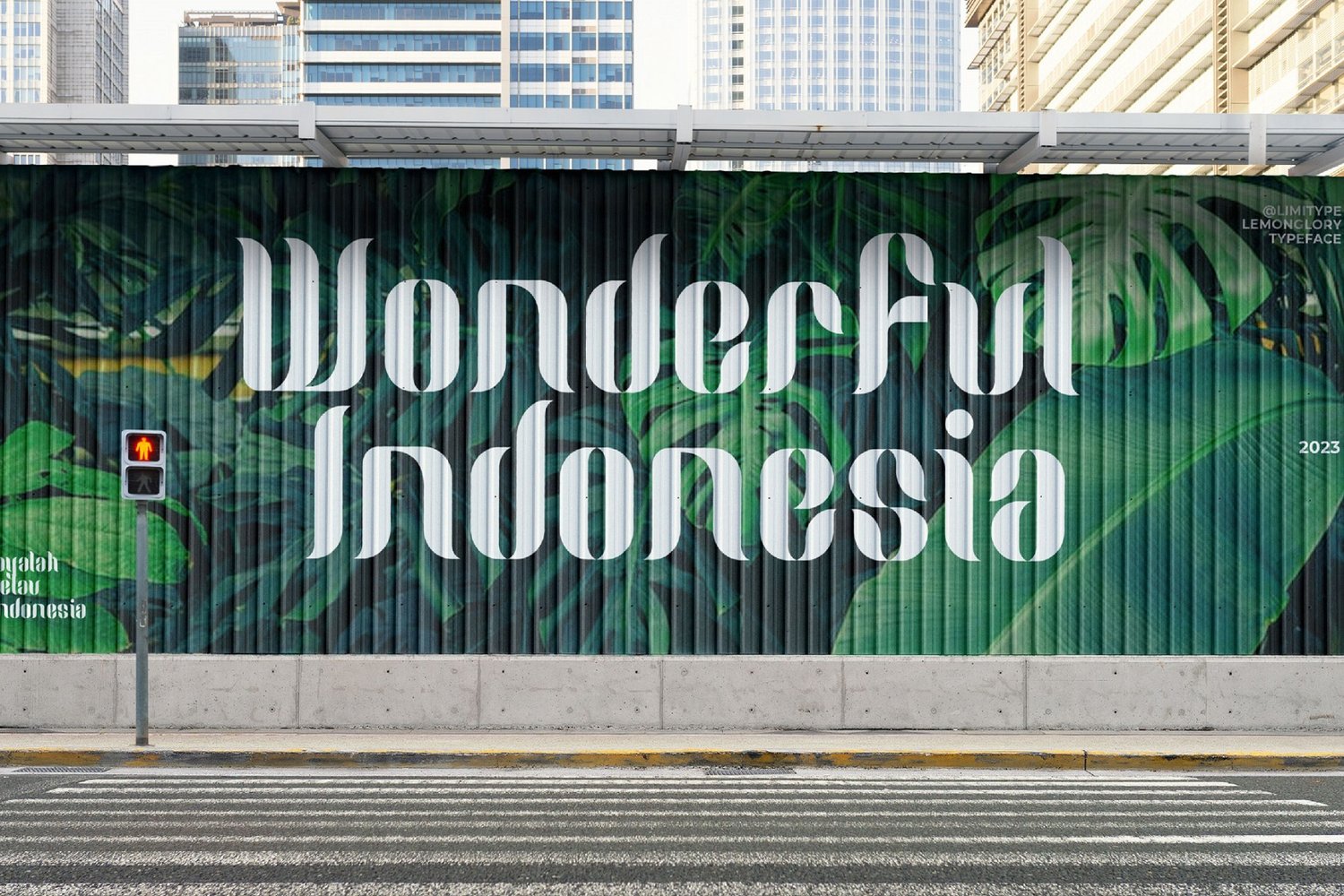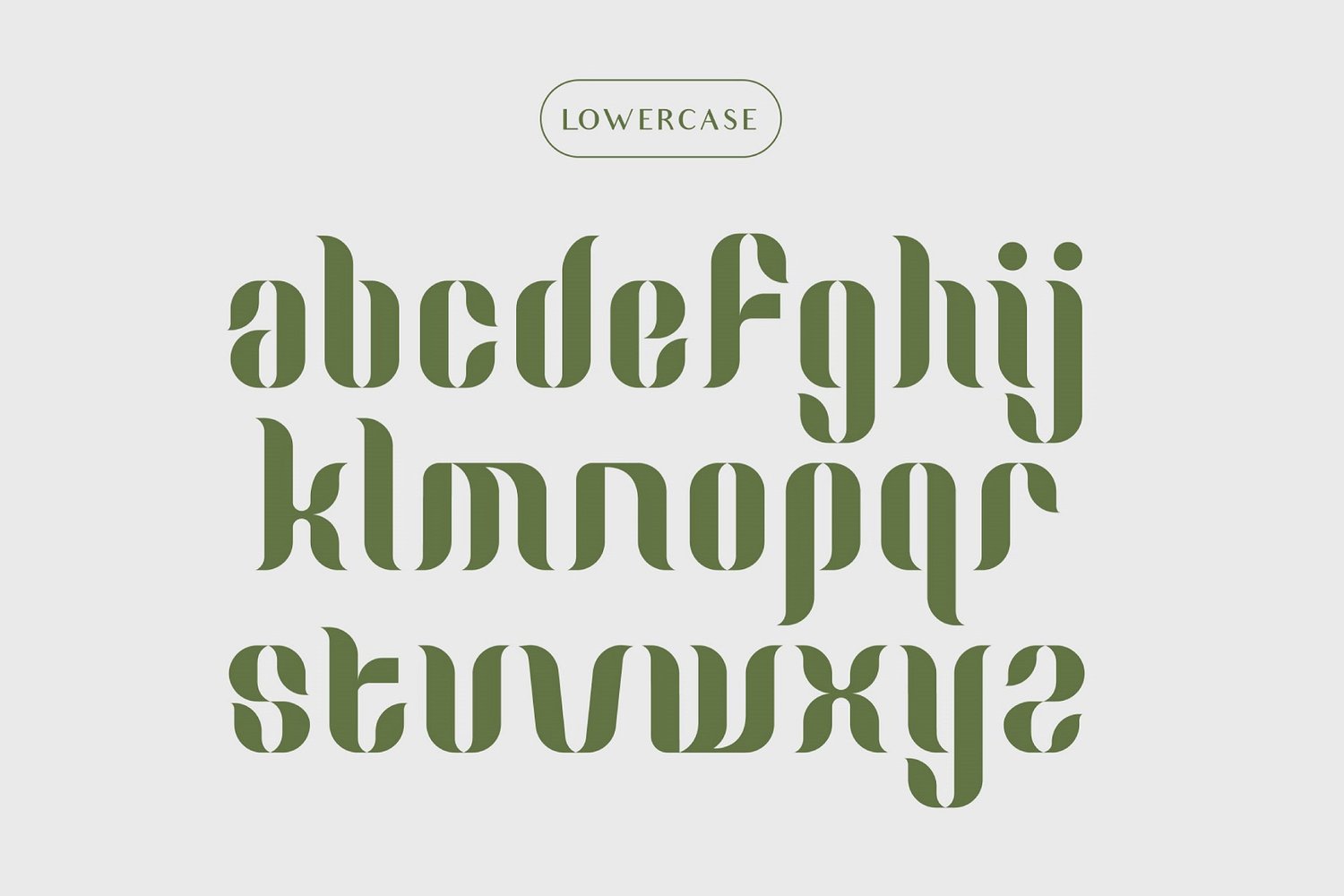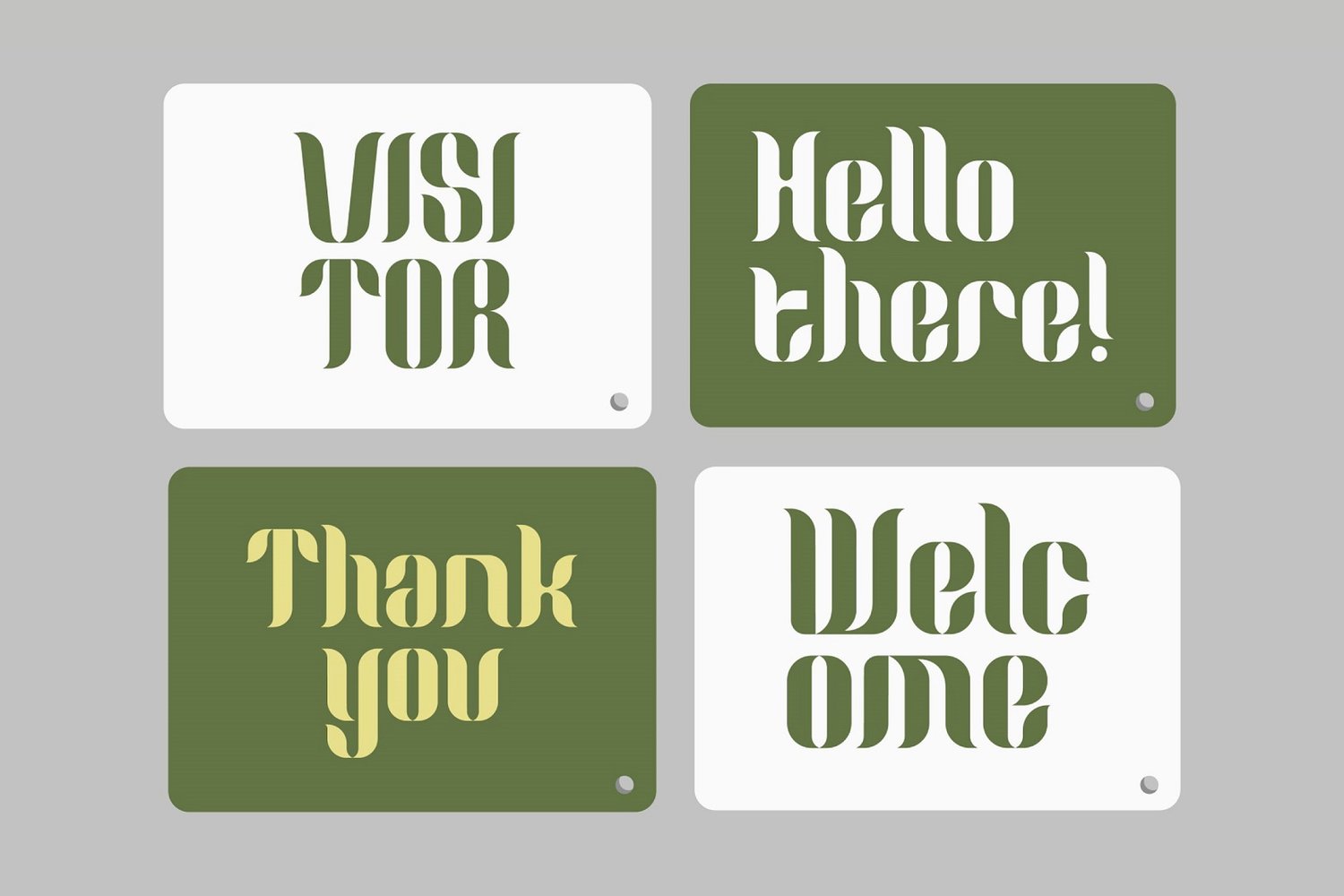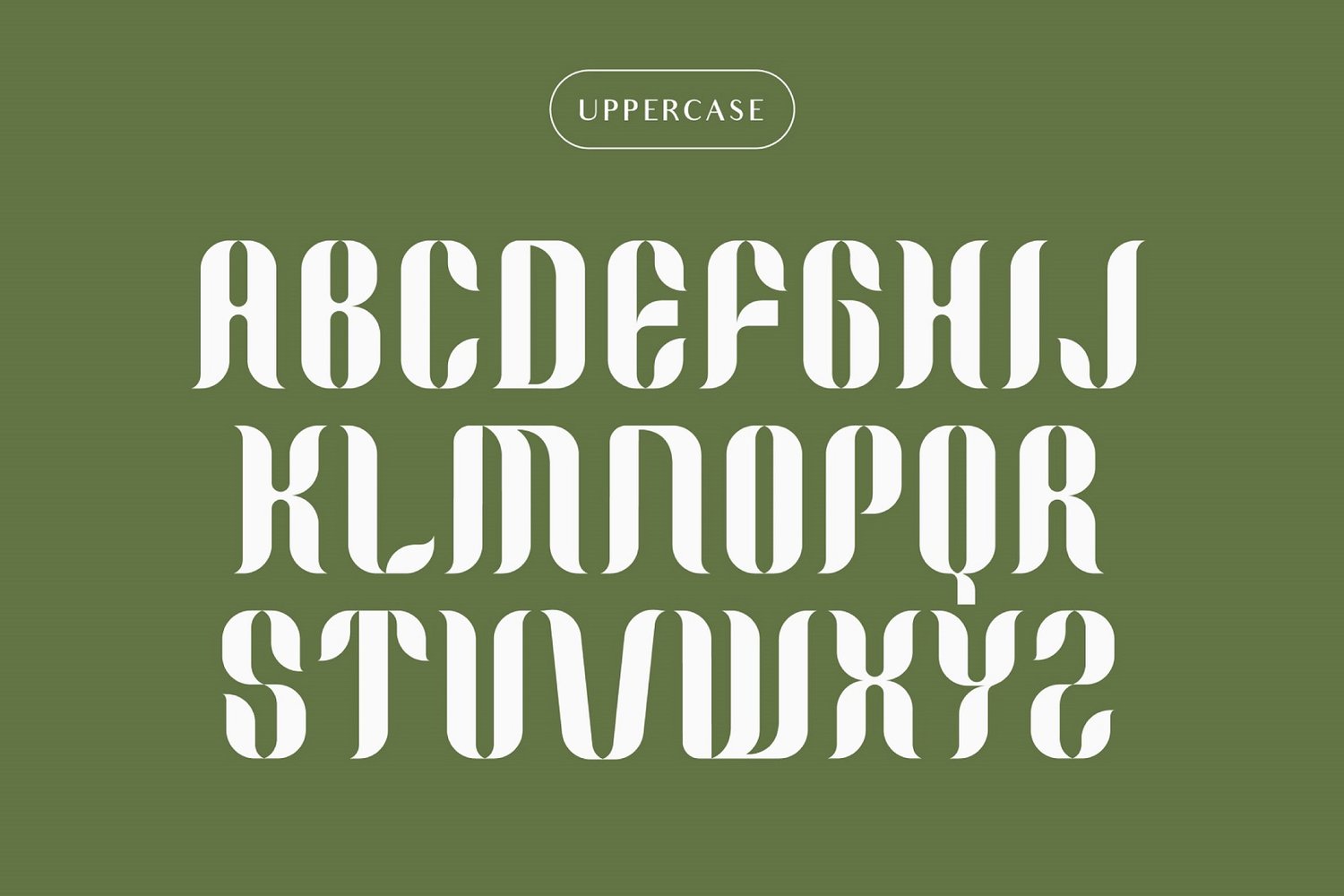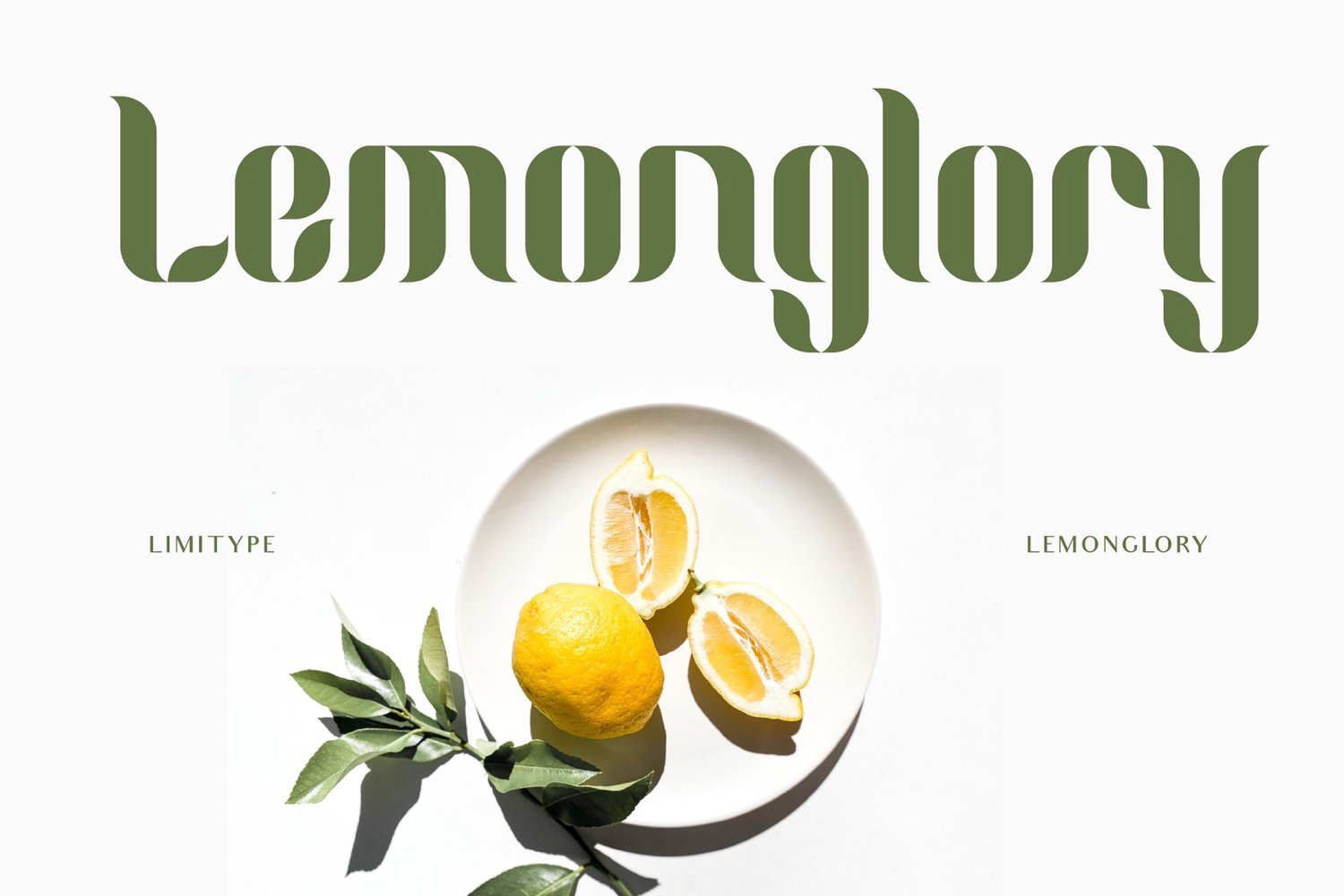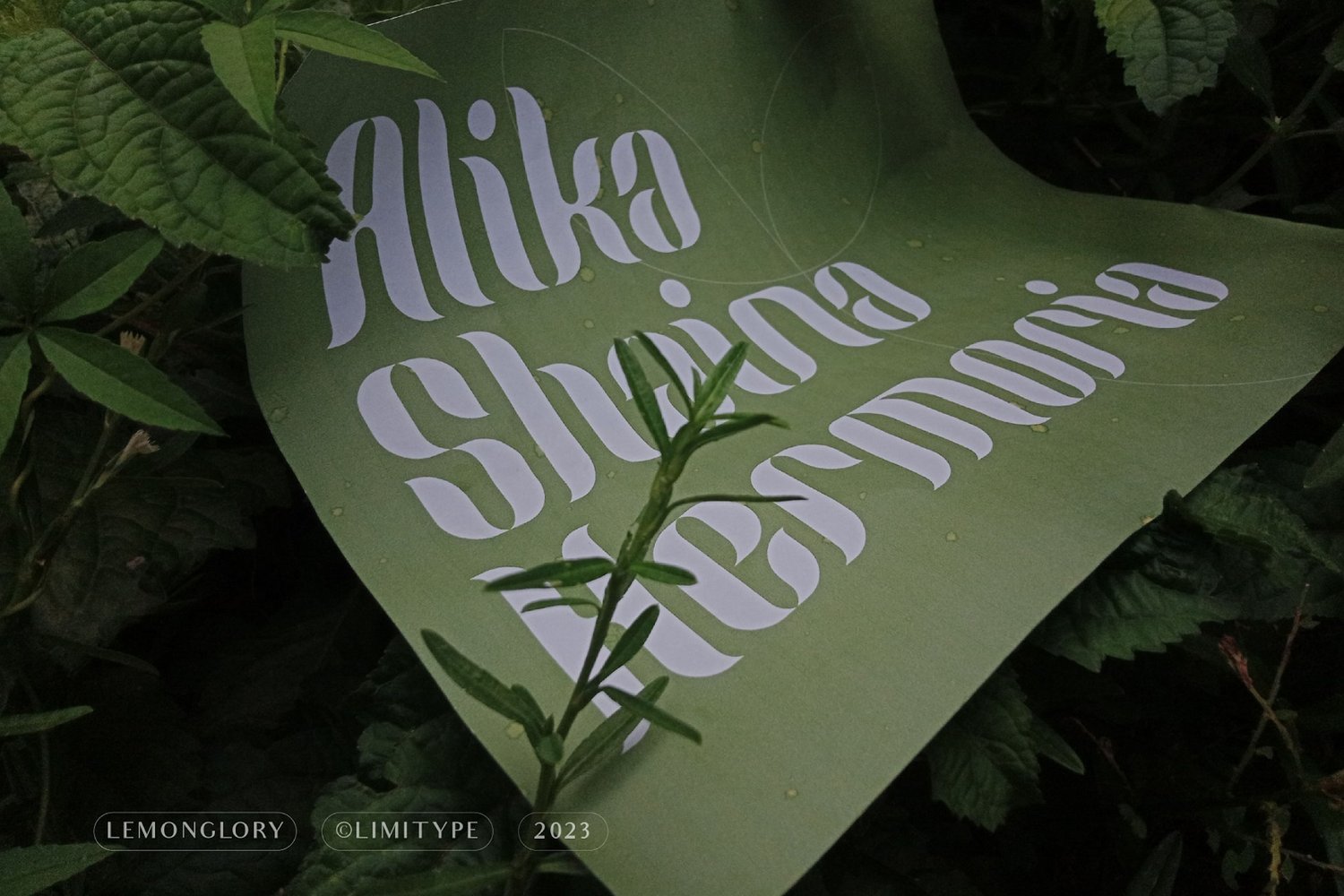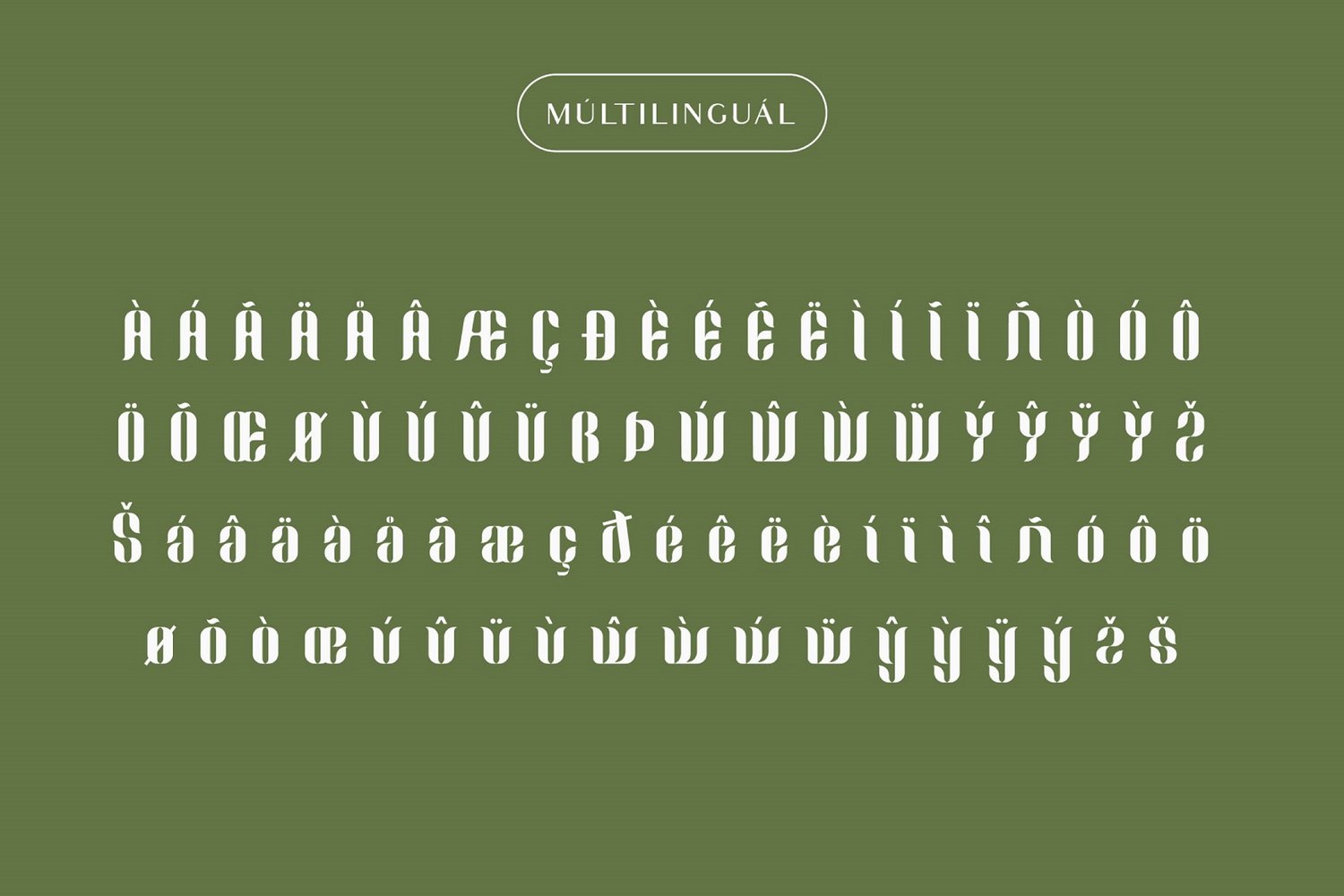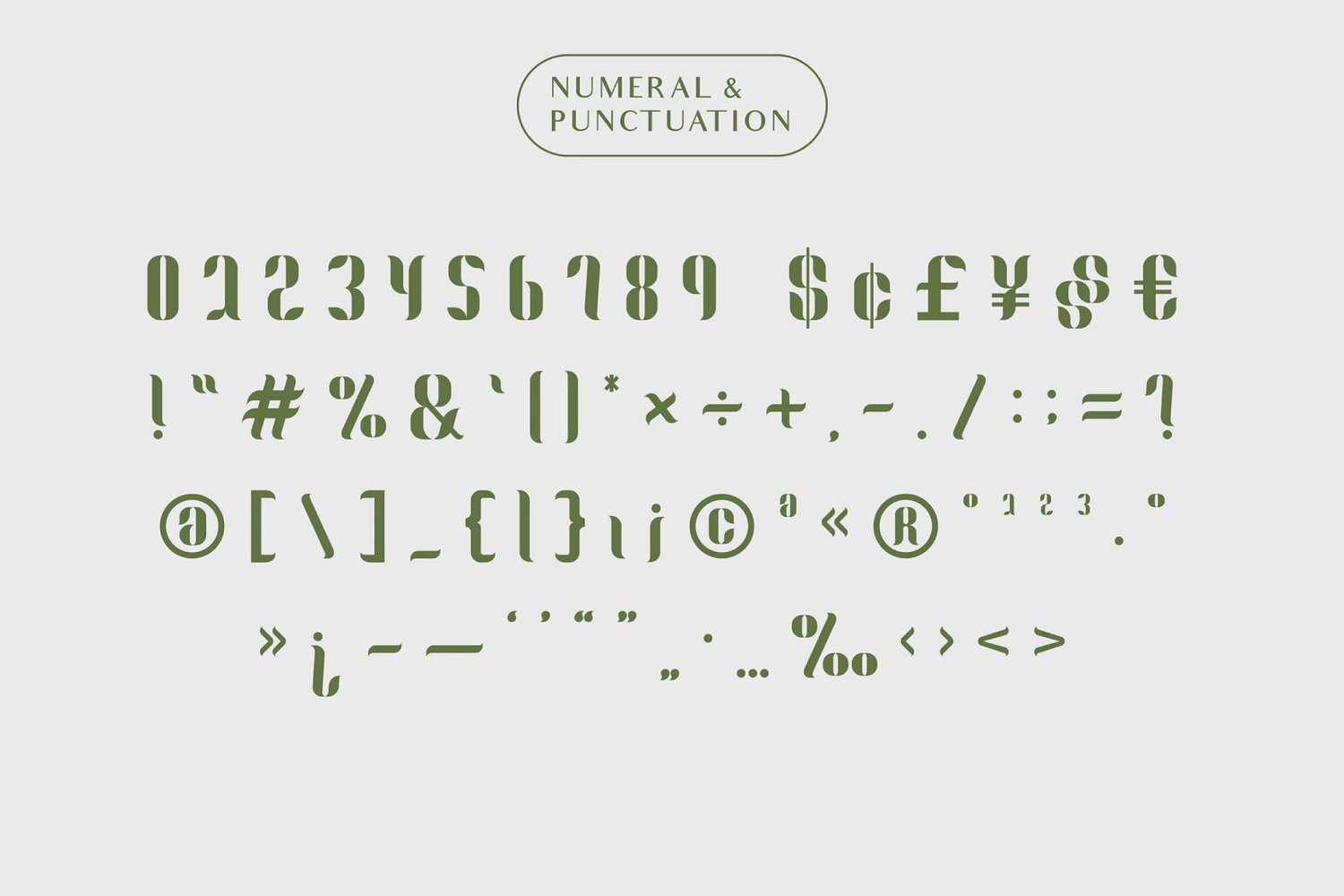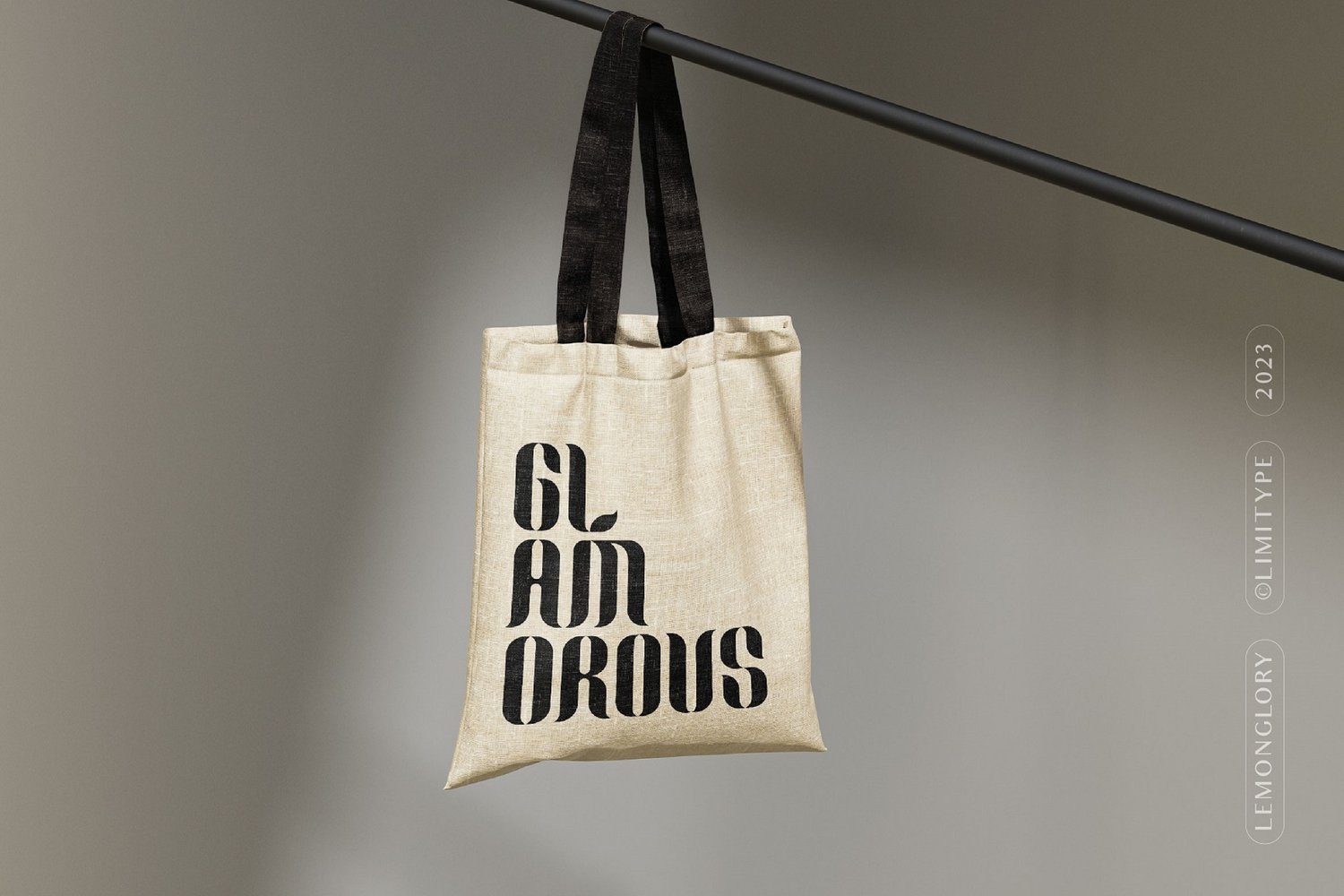
Lemon Glory - Flowers Font
Lemonglory is a modern font inspired by the shape of a leaf, with a unique shape this font is suitable for displays, logos, headlines, posters etc. lemonglory is equipped with uppercase, lowercase, symbols and multilingual